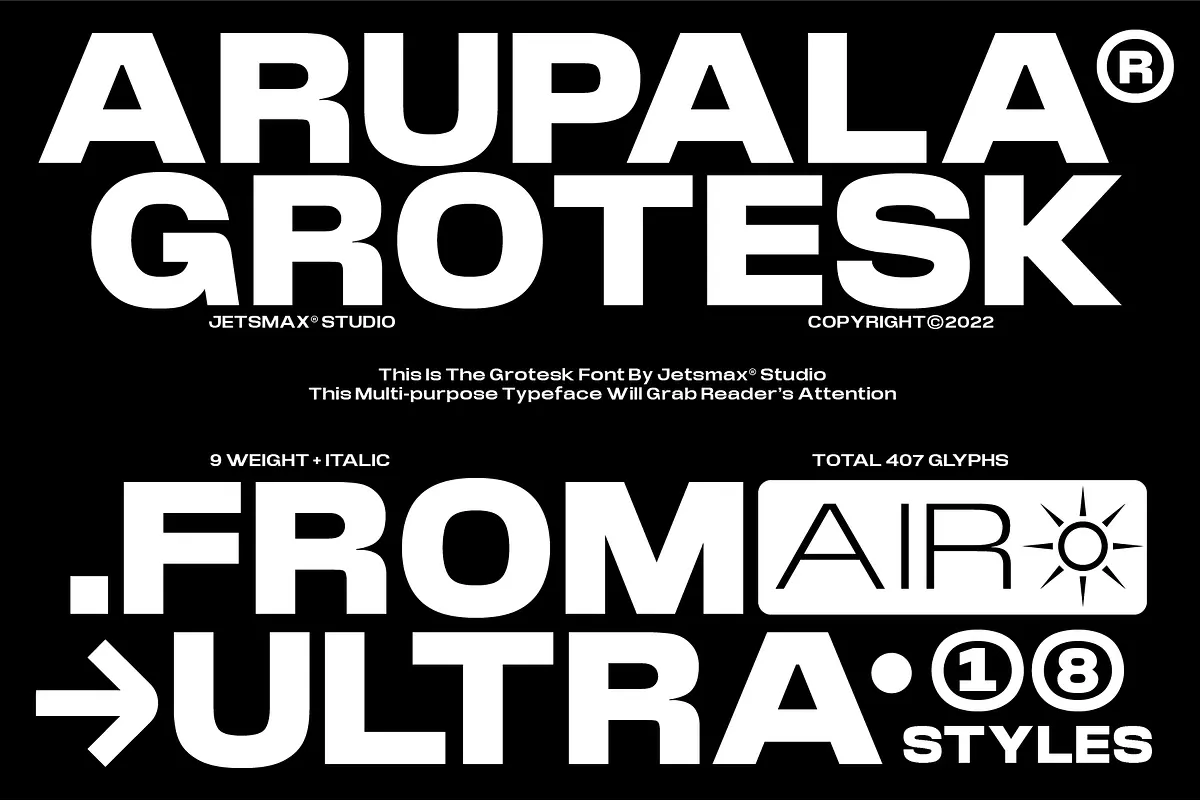
Arupala Grotesk Font Free Download is a versatile sans-serif typeface inspired by the character H. Aroepala. Designed by Khairil Anwar of Jetsmax Studio, this font is suitable for both formal and informal events, as well as various types of print and digital media.
The font family includes multiple weights and styles, making it adaptable for a wide range of design projects. Its clean lines and modern aesthetic ensure readability and visual appeal, whether used in branding, editorial design, or web development.